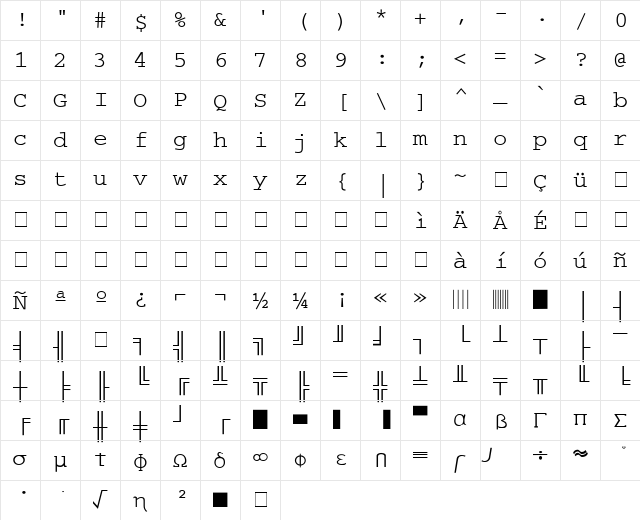
Complete LotusLineDraw Regular glyph index. Displaying only characters natively supported by LotusLineDraw Regular font.
LotusLineDraw is a composed and adaptable typeface that performs quietly and consistently across a wide range of design contexts.